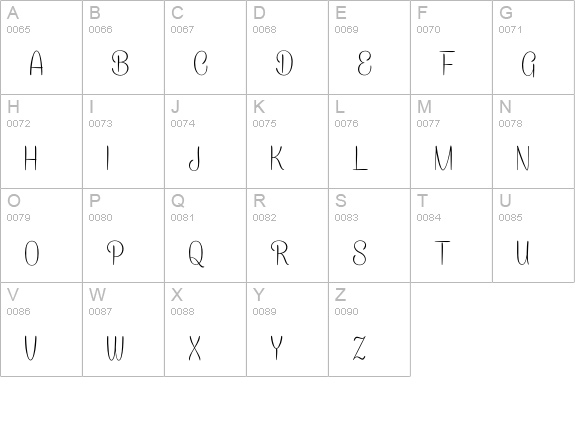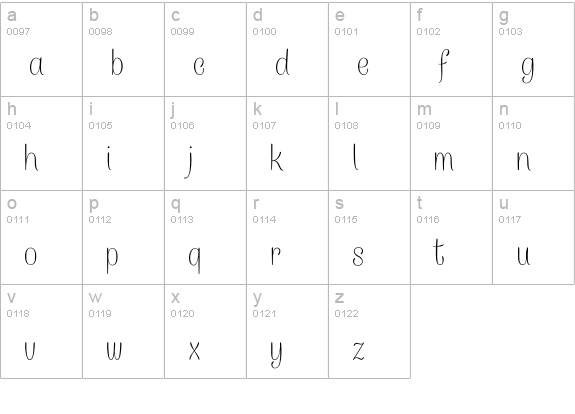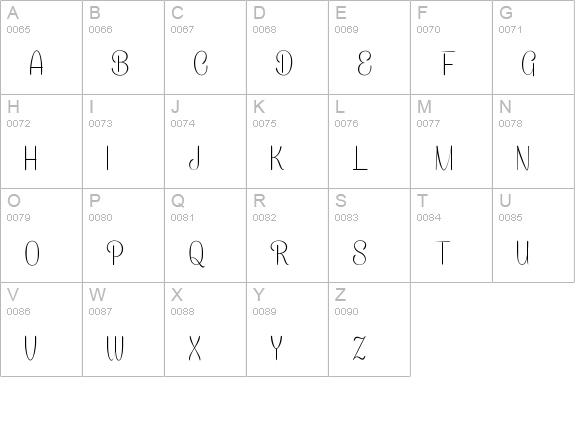
Caneletter Sans Thin Personal is a delicate, low-contrast variant in the Caneletter typeface family \xE2\x80\x94 well suited to fashion editorial, minimal branding, and high-contrast display.
Introducing Caneletter Sans Thin Personal Font, a modern and elegant typeface designed for those who seek a touch of sophistication in their designs. With its delicate and refined strokes, this font effortlessly captures attention and adds a subtle charm to any project. Caneletter Sans Thin Personal Font is the perfect choice for creating captivating headlines, eye-catching logos, and stylish branding materials. Its sleek and slender design exudes a sense of minimalism, making it suitable for a wide range of applications, from fashion magazines to high-end websites. This font is not only visually stunning but also highly versatile. It can be used in both print and digital media, ensuring that your message stands out in every medium. Whether you're designing a poster, crafting an invitation, or creating a social media graphic, Caneletter Sans Thin Personal Font will elevate your work to new heights. What's even better is that Caneletter Sans Thin Personal Font is available for free download exclusively at FontsMarket.com. This means that you can enjoy the sheer beauty and professional quality of this font without spending a dime. It's the perfect opportunity to enhance your creative projects without breaking the bank. So, why wait? Download Caneletter Sans Thin Personal Font today and unlock a world of design possibilities. With its impeccable style and the added bonus of being freely available, this font is a must-have for any designer or creative enthusiast. Elevate your designs and make a lasting impression with Caneletter Sans Thin Personal Font from FontsMarket.com.